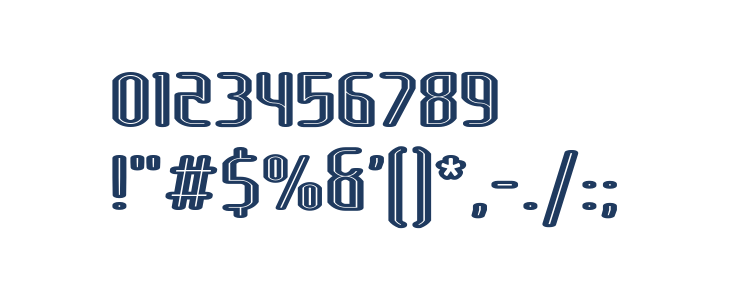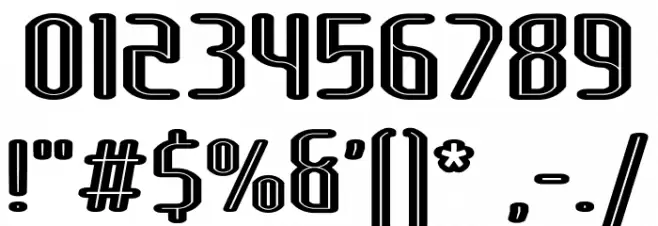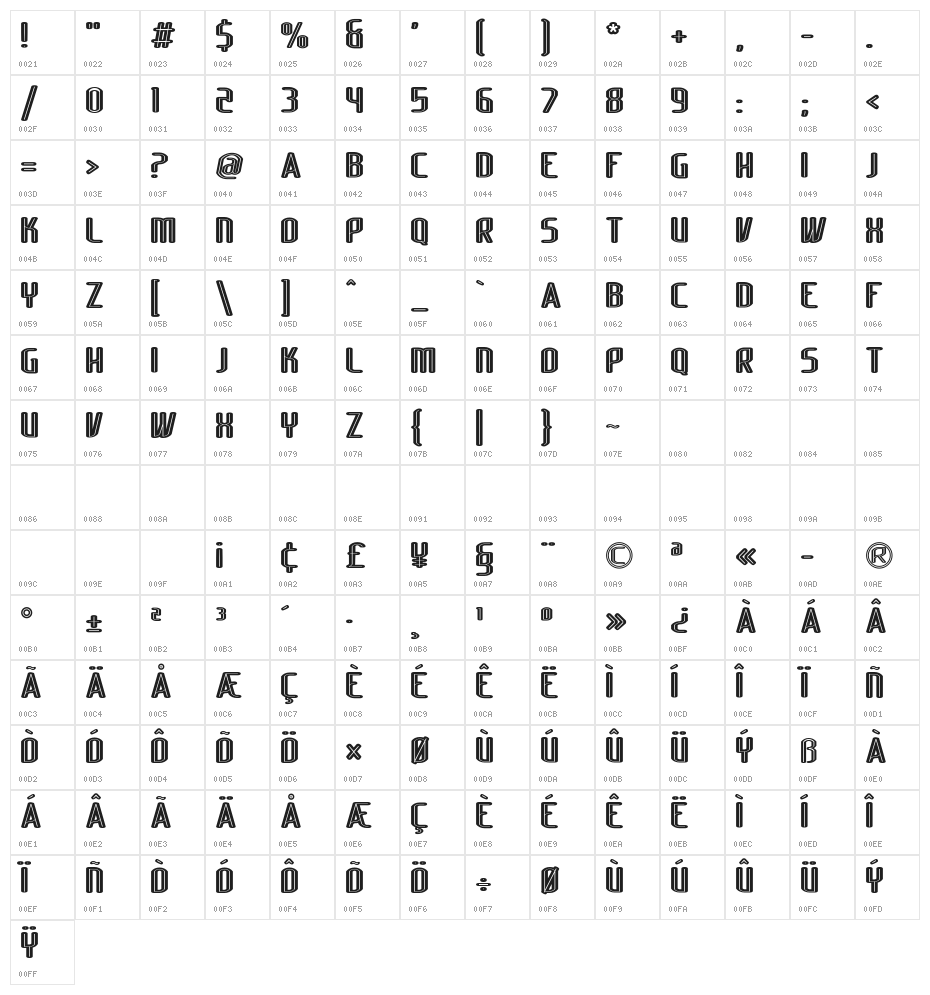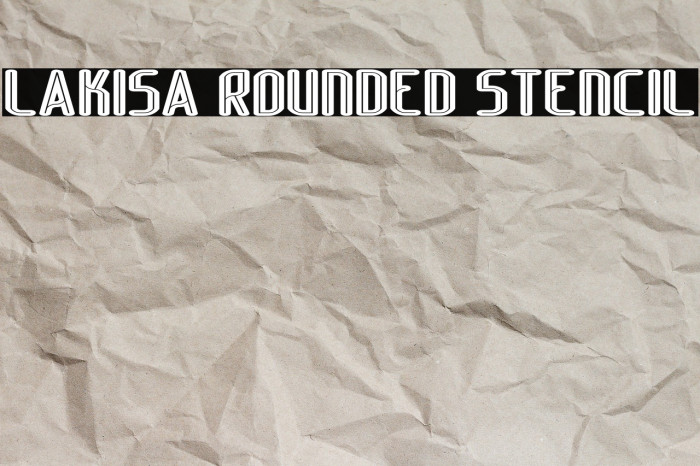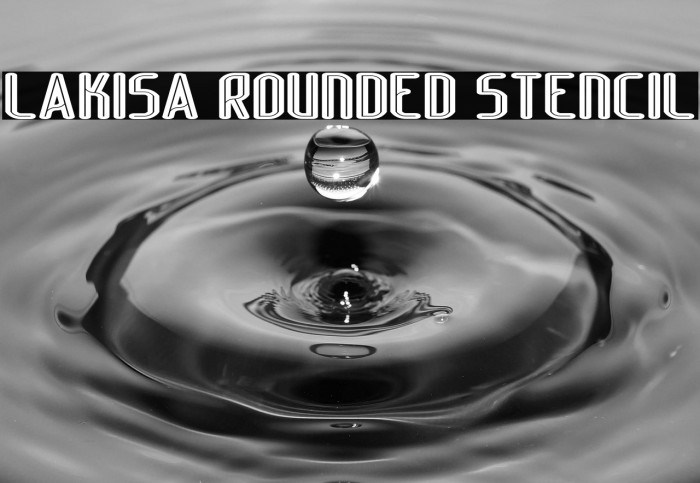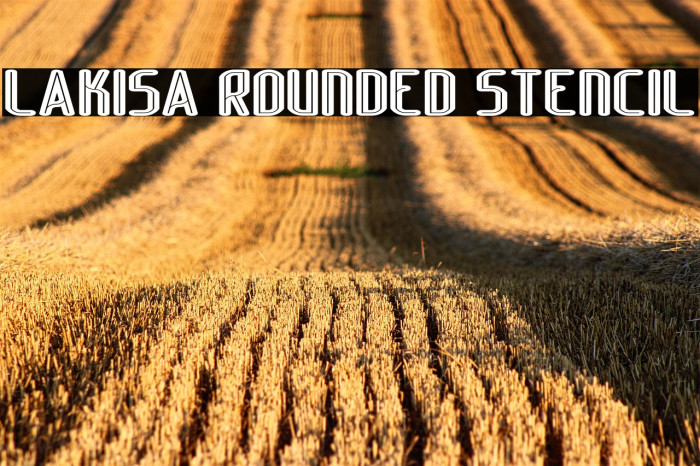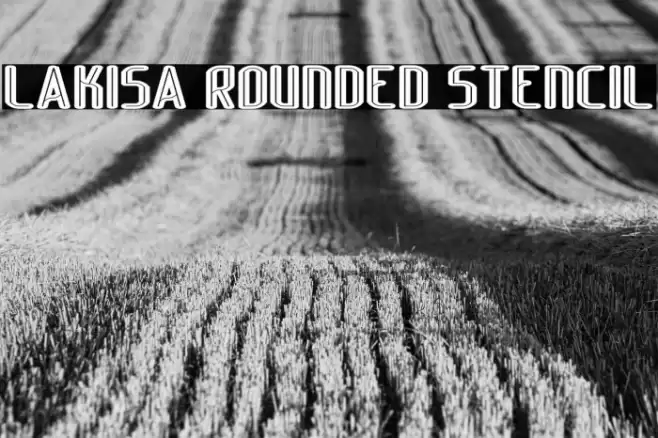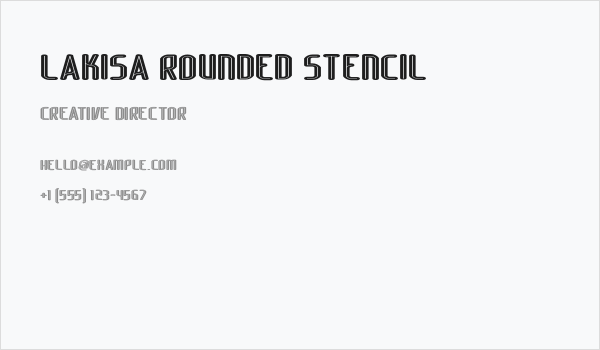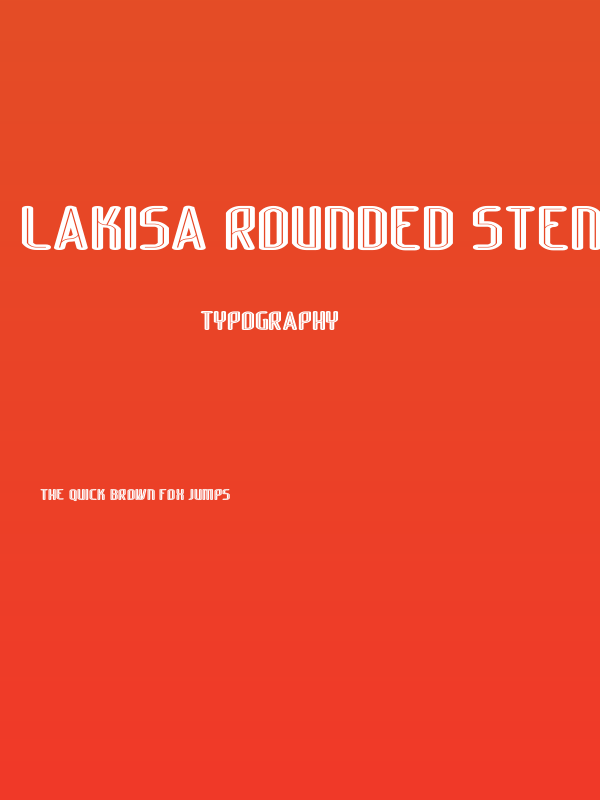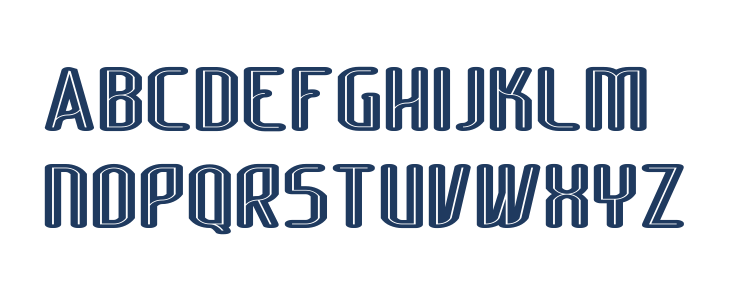
Lakisa Rounded Stencil Font
Lakisa Rounded Stencil Description
This font features a unique rounded stencil design, combining the boldness of stencil cuts with smooth, rounded edges. The uppercase and lowercase letters maintain a consistent style, with clean lines and a modern aesthetic. The numbers and special characters follow the same design principles, ensuring uniformity across all glyphs. The font's open spaces and rounded corners give it a friendly yet industrial feel, making it versatile for various design applications. Its distinct appearance is both eye-catching and readable, suitable for projects that require a strong visual impact.